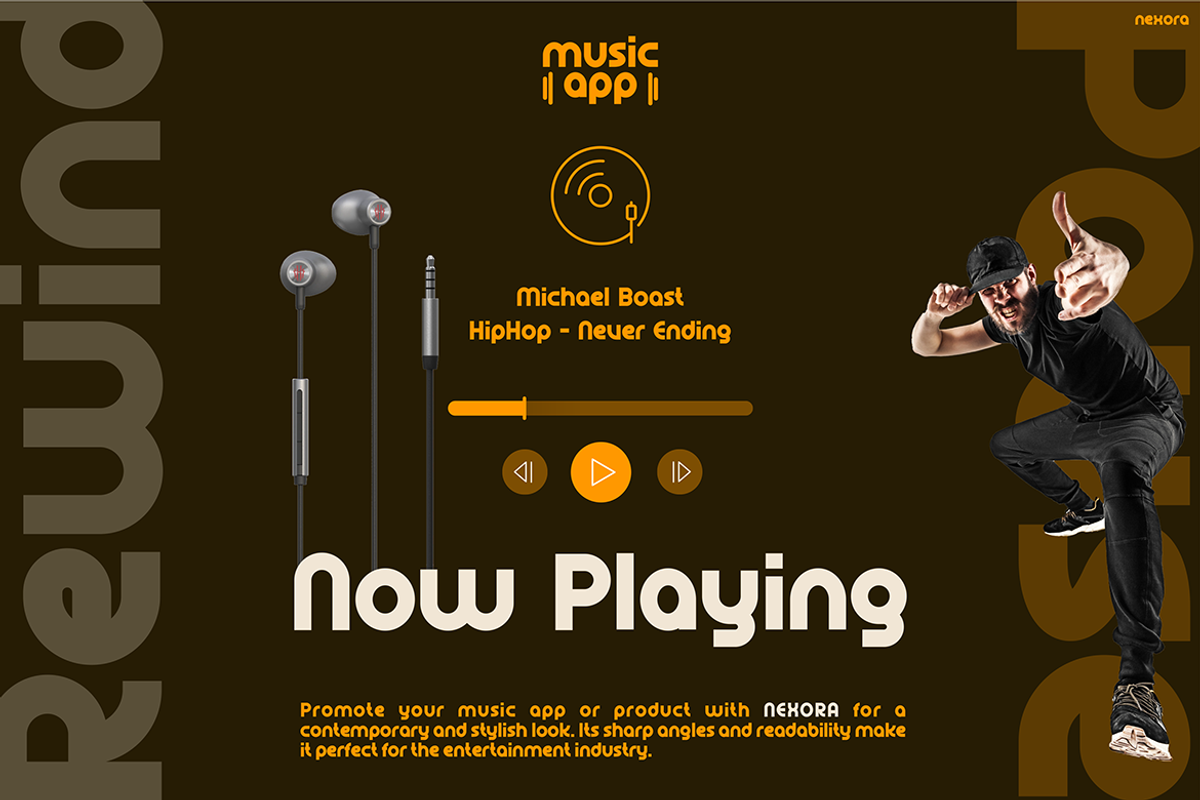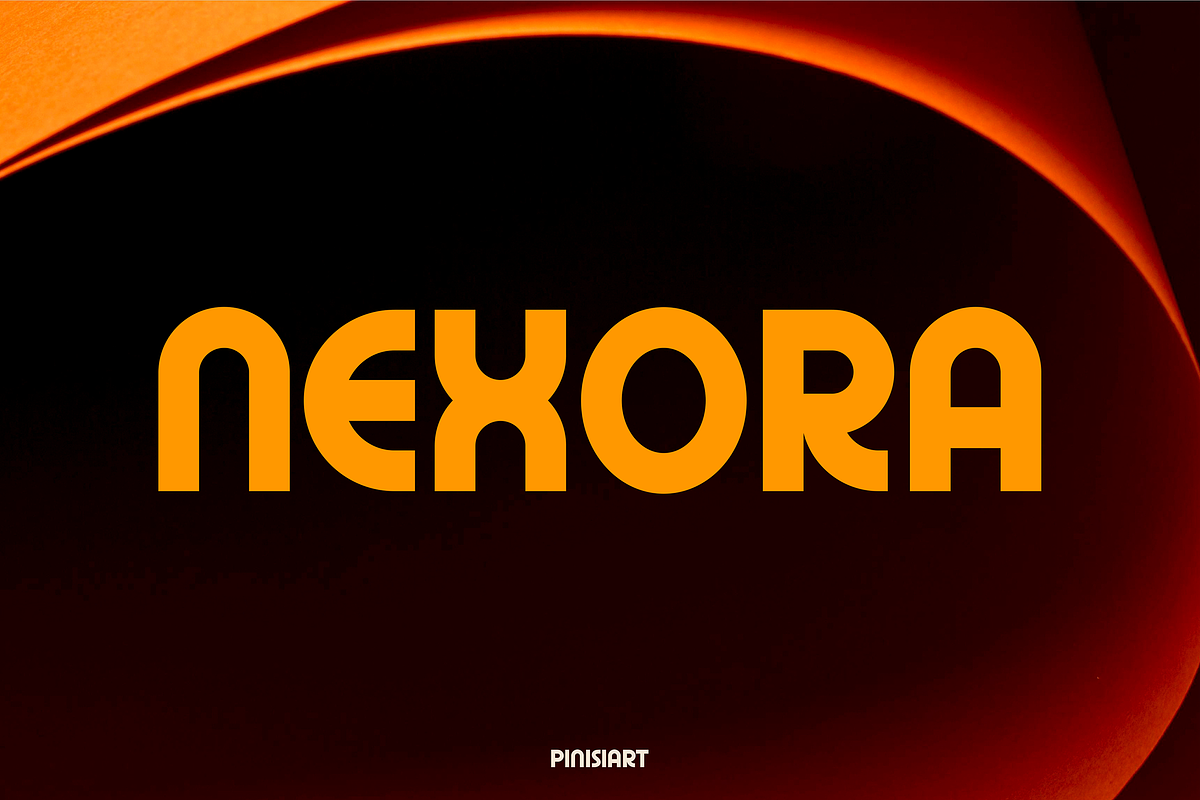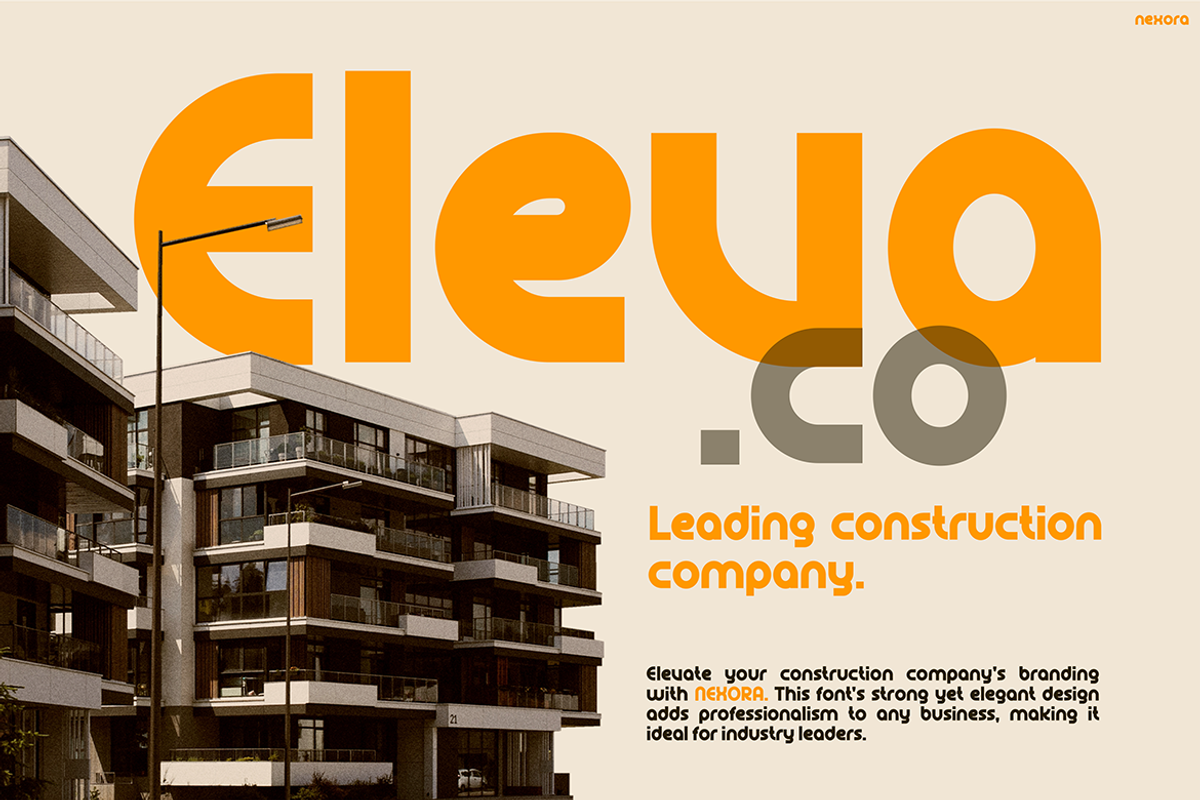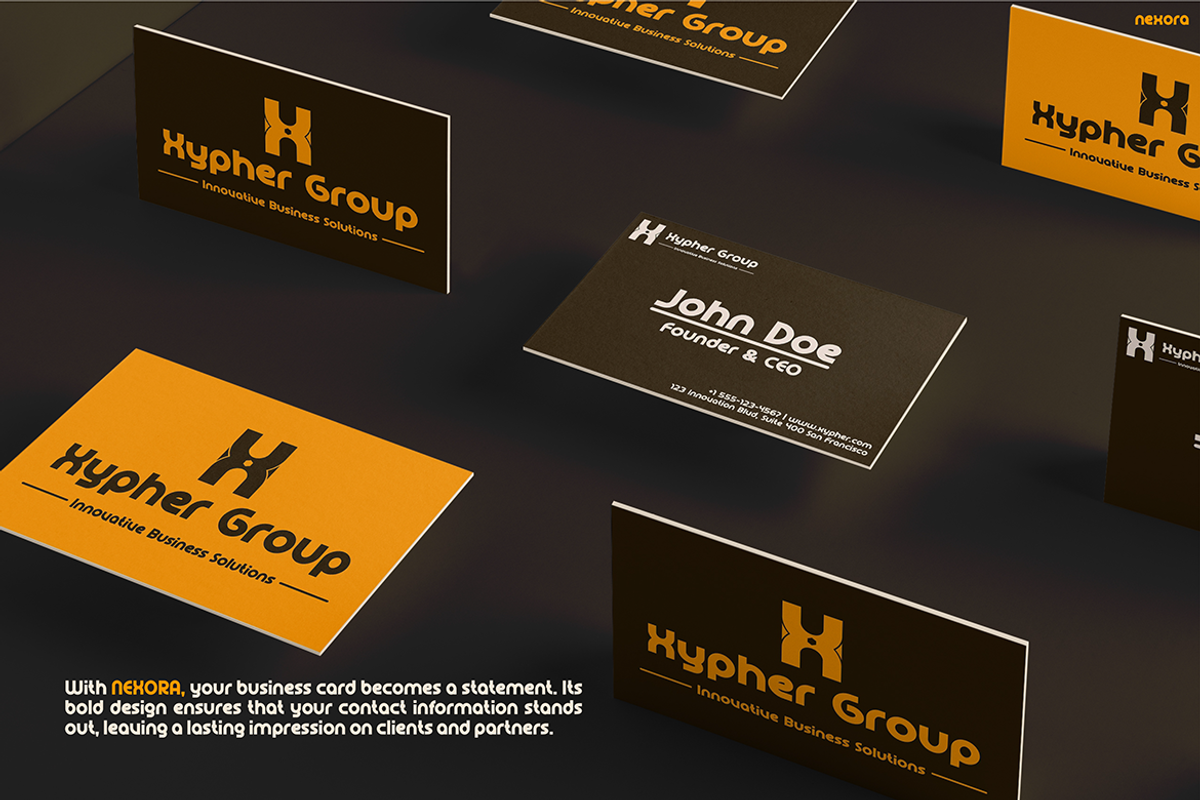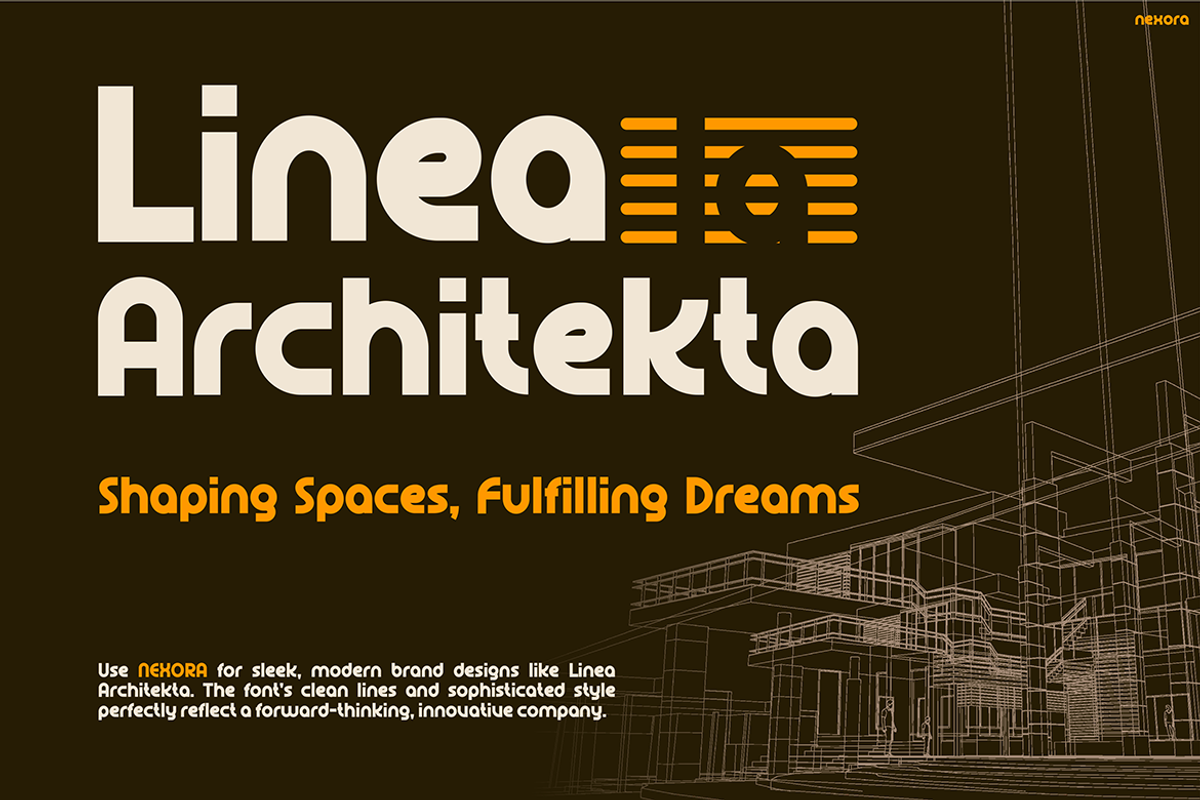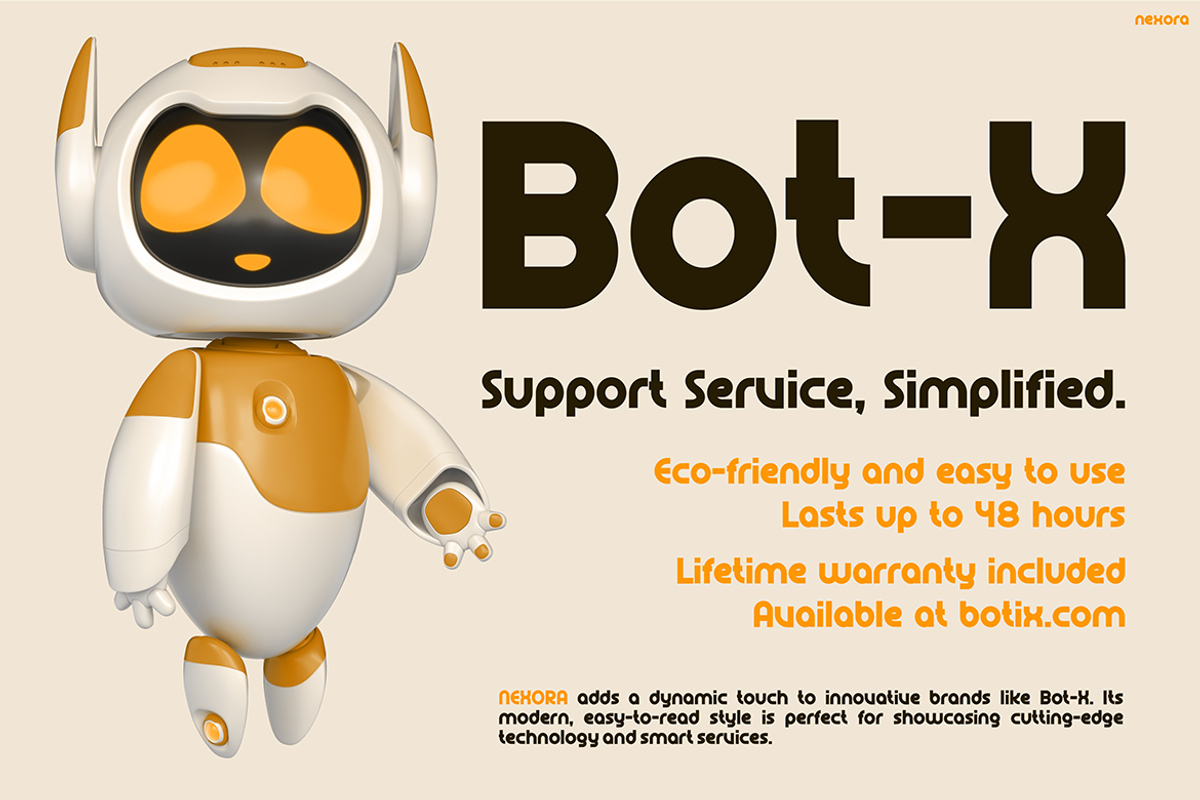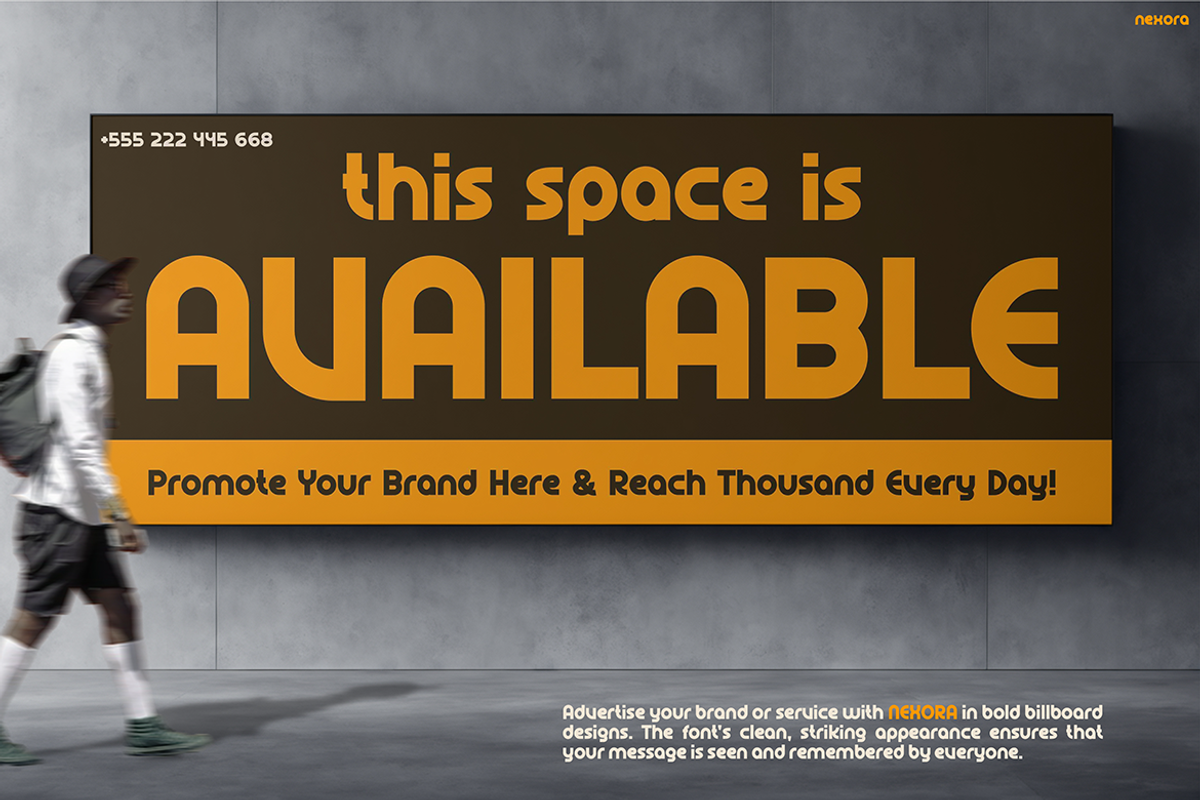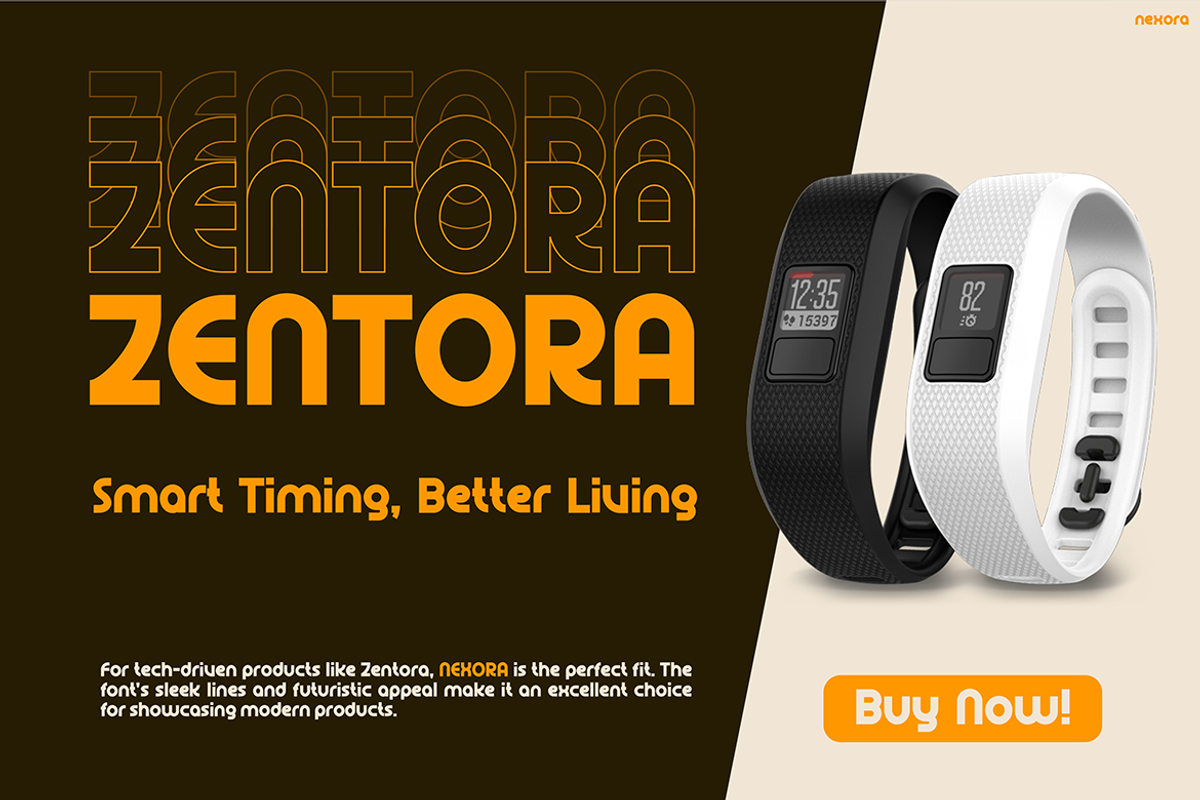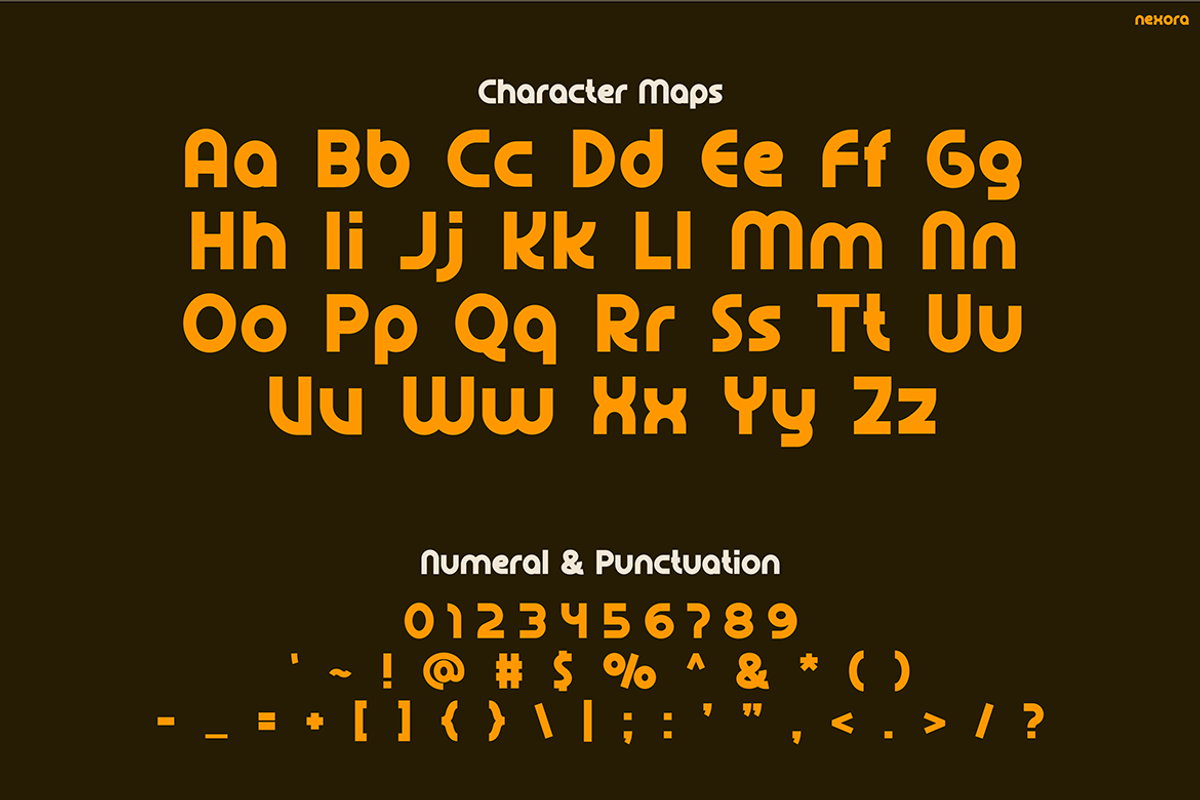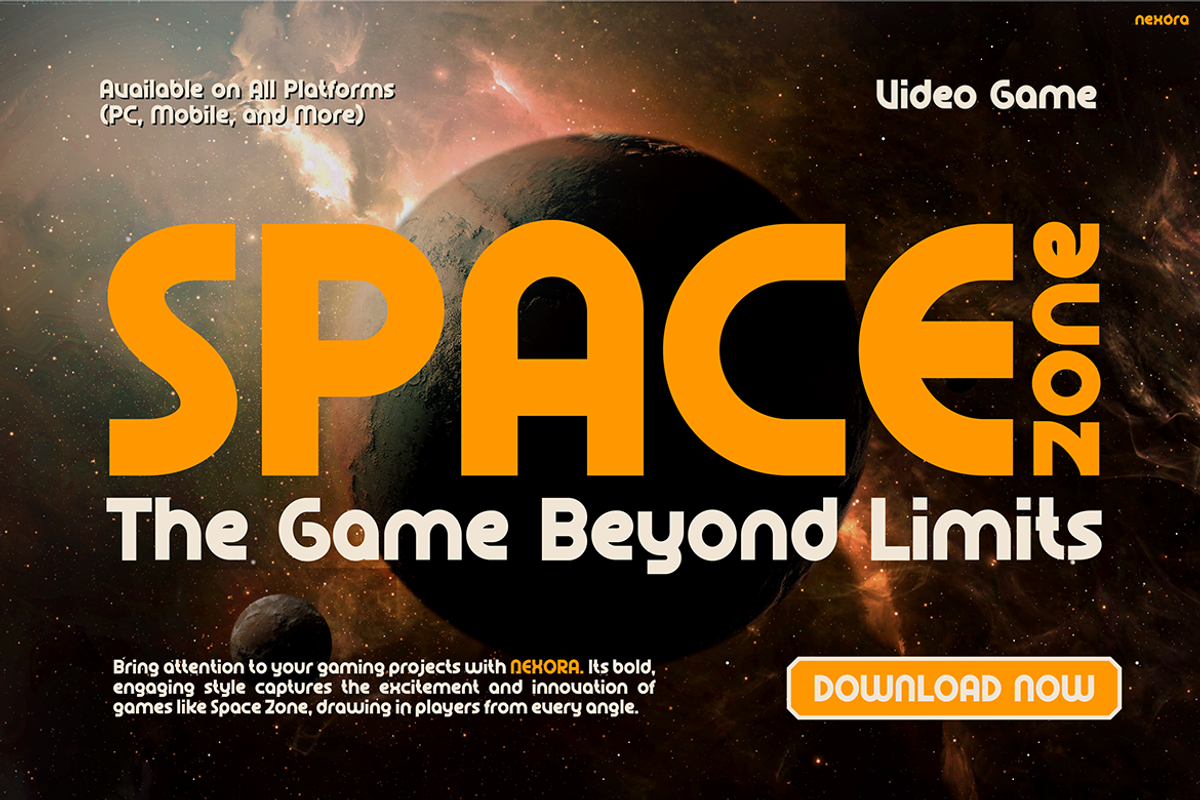
NEXORA
Futuristic Font NEXORA is a sleek, modern typeface designed for cutting-edge brands and creative projects. Inspired by futuristic technology, digital interfaces, and innovative architecture, NEXORA embodies a forward-thinking aesthetic. Moreover, its bold, geometric letterforms and smooth curves create a perfect balance of modern sophistication and minimalism. Whether for branding, posters, UI/UX design, or sci-fi visuals, NEXORA stands out.
The font’s clean design ensures readability while maintaining impact. Additionally, its subtle rounded edges soften the futuristic look, making it versatile for corporate and artistic applications. NEXORA thrives in high-tech environments, gaming interfaces, and digital advertising. Furthermore, the proportional letterforms ensure smooth reading, making it ideal for headlines and body text.
If you’re looking for a font that embodies innovation, modernity, and sleek sophistication, NEXORA is the ultimate choice. It bridges contemporary aesthetics with a futuristic vision, making it perfect for brands that want to stand out in the digital landscape.